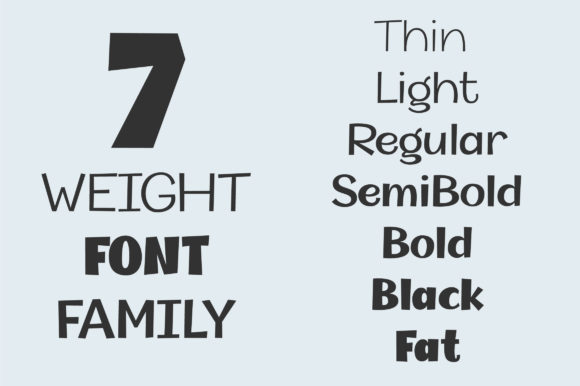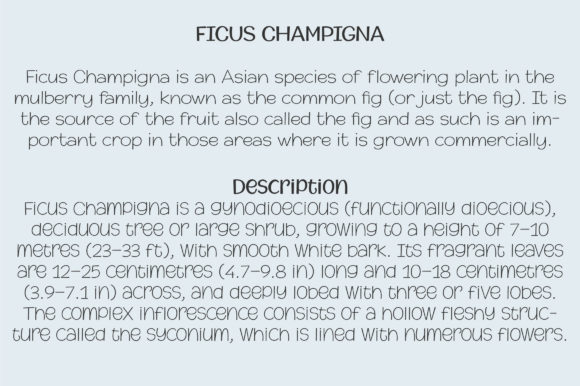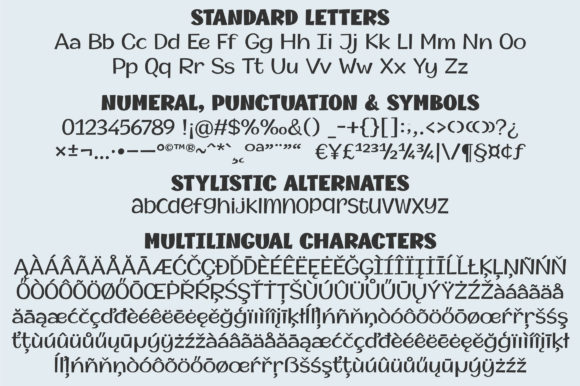
Introducing Champigna Family Font: Elevate Your Design with Modern Appeal
In the world of typography, a font can make or break a design project. A well-crafted font can elevate your work, adding a touch of sophistication and style. If you’re a designer or crafter looking for a font that embodies modern appeal, look no further than the Champigna Family Font. This stunning sans serif font family is designed to take your designs to the next level, offering a fresh and contemporary look that’s sure to impress.
What is Champigna Family Font?
Champigna is a beautifully crafted sans serif font family that exudes modernity and elegance. Its clean lines, precise curves, and balanced proportions make it perfect for a wide range of design applications, from branding and advertising to packaging and digital media. The font family comes in multiple weights, allowing you to choose the perfect style to suit your project’s needs.
Key Features of Champigna Family Font
• Modern sans serif design: Champigna’s sleek and contemporary design makes it perfect for projects that require a fresh and modern look.
• Multiple weights: The font family comes in several weights, ranging from light to bold, allowing you to choose the perfect style to suit your project’s needs.
• Clean lines and precise curves: Champigna’s clean lines and precise curves ensure that your text is always legible and easy to read.
• Balanced proportions: The font’s balanced proportions ensure that your text is always visually appealing and harmonious.
Why Choose Champigna Family Font?
So, why choose Champigna Family Font for your design projects? Here are just a few reasons:
• Versatility: Champigna is a versatile font that can be used in a wide range of design applications, from branding and advertising to packaging and digital media.
• Legibility: The font’s clean lines and precise curves ensure that your text is always legible and easy to read, even at small sizes.
• Uniqueness: Champigna’s modern sans serif design sets it apart from more traditional fonts, giving your designs a fresh and contemporary look.
• Ease of use: The font family comes in a range of weights, making it easy to choose the perfect style to suit your project’s needs.
How to Use Champigna Family Font in Your Designs
Using Champigna Family Font in your designs is easy. Here are a few tips to get you started:
• Pair it with other fonts: Champigna pairs well with other sans serif fonts, as well as serif fonts. Experiment with different pairings to find the perfect combination for your project.
• Use it for headlines and body text: Champigna’s clean lines and precise curves make it perfect for both headlines and body text.
• Experiment with different weights: The font family’s multiple weights make it easy to add visual interest to your designs. Use a bold weight for headlines and a lighter weight for body text.
Font Name Champigna Family Font
Author Royaltype
In conclusion, Champigna Family Font is a stunning sans serif font family that’s perfect for designers and crafters looking to elevate their design projects with modern appeal. Its clean lines, precise curves, and balanced proportions make it versatile and easy to use, while its multiple weights offer a range of options to suit your project’s needs. Whether you’re working on a branding project, creating packaging, or designing for digital media, Champigna Family Font is sure to impress.